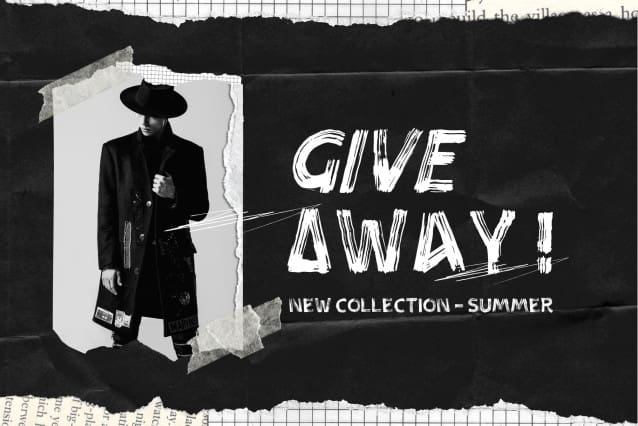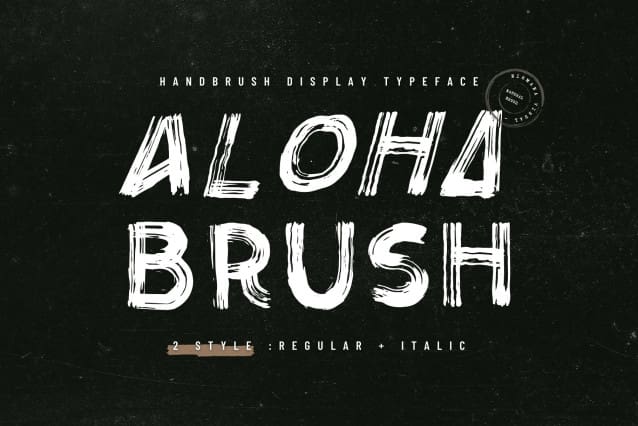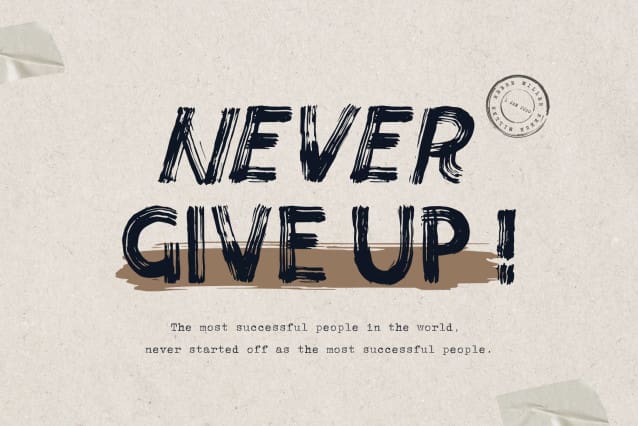
Aloha Brush Font
Aloha Brush Font, this font is a supercharged, street-wise brush font bursting with energy. With extra feel as a real brush would!
Letters are made with brushes on paper. Then scanned and carefully drawn into vector format.
Thas 2 styles of regular and italic variations with a more natural look to your text.
Aloha Brush is very suitable for use in various media such as; packaging, logos, labels, posters, shirt designs, bulletins, typography, and many other media.